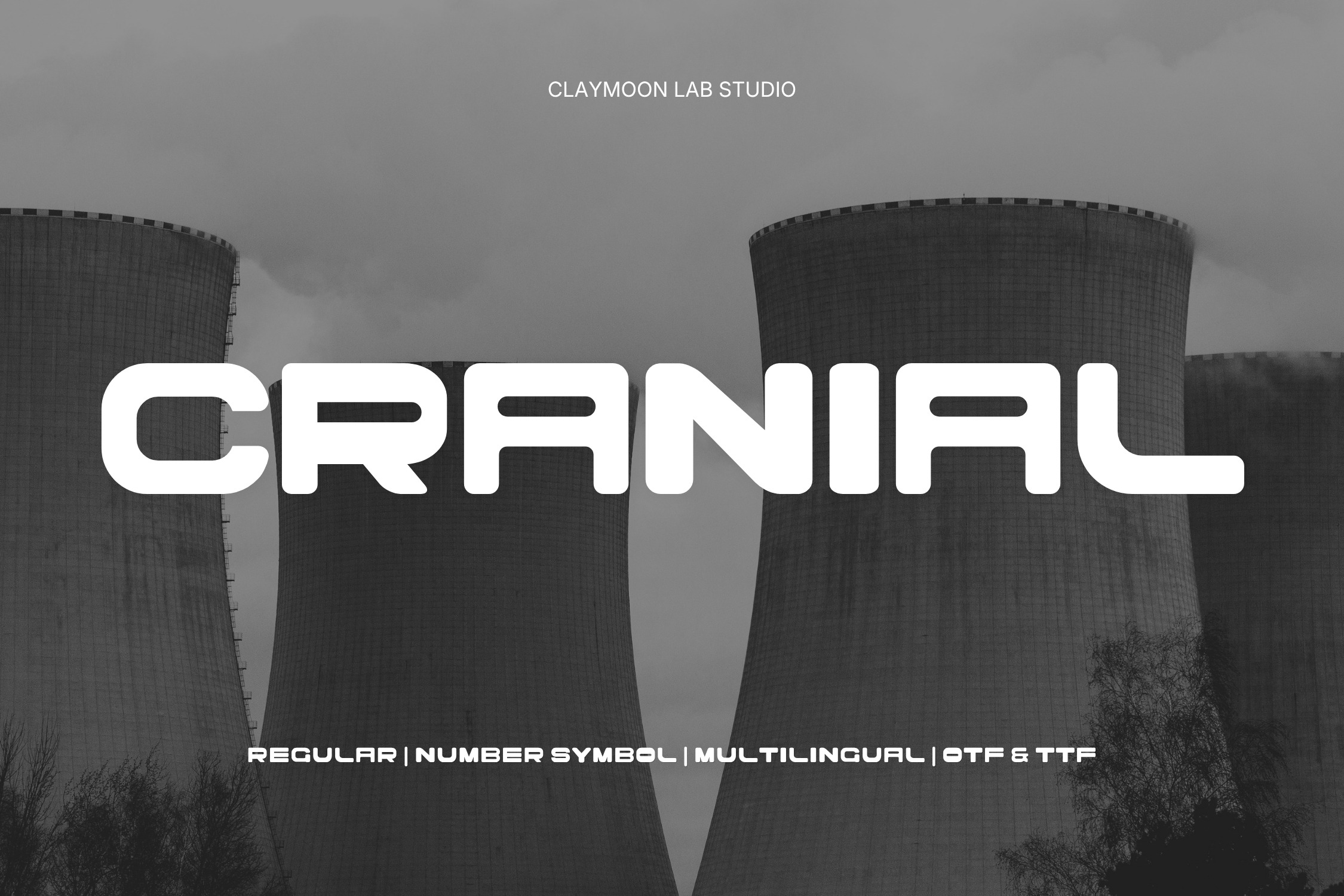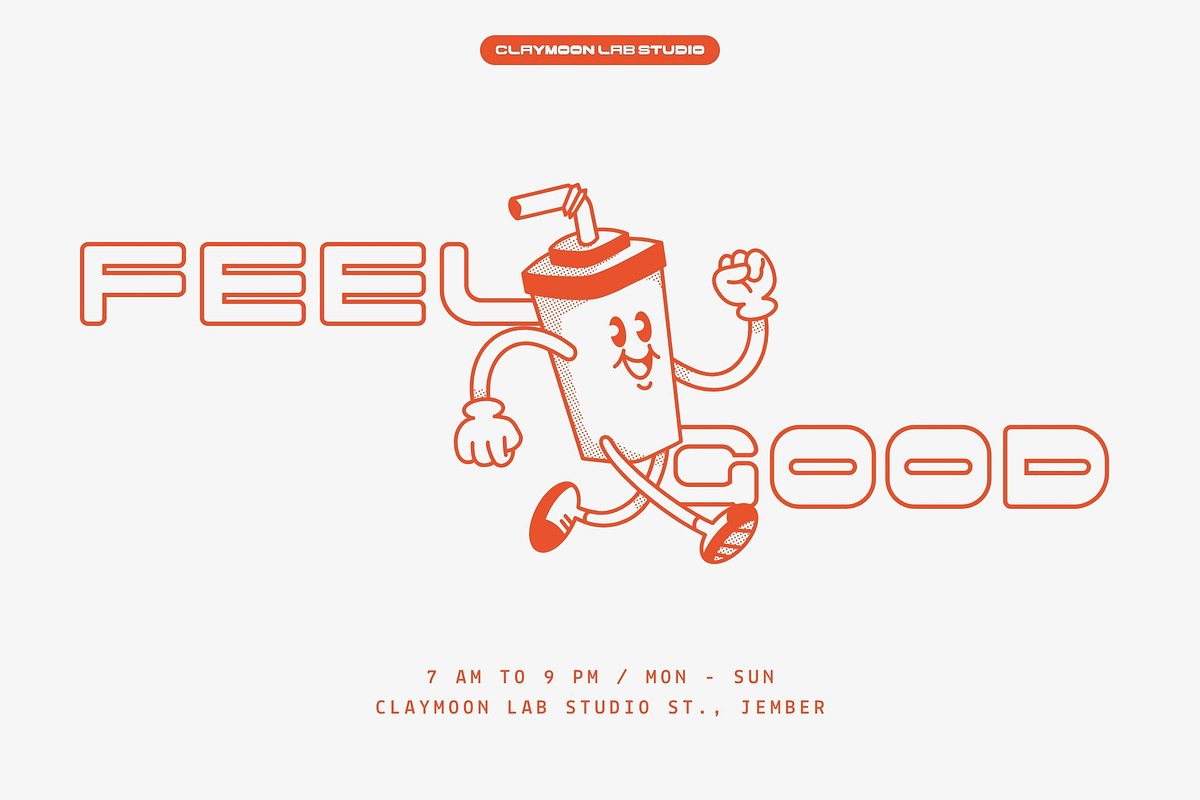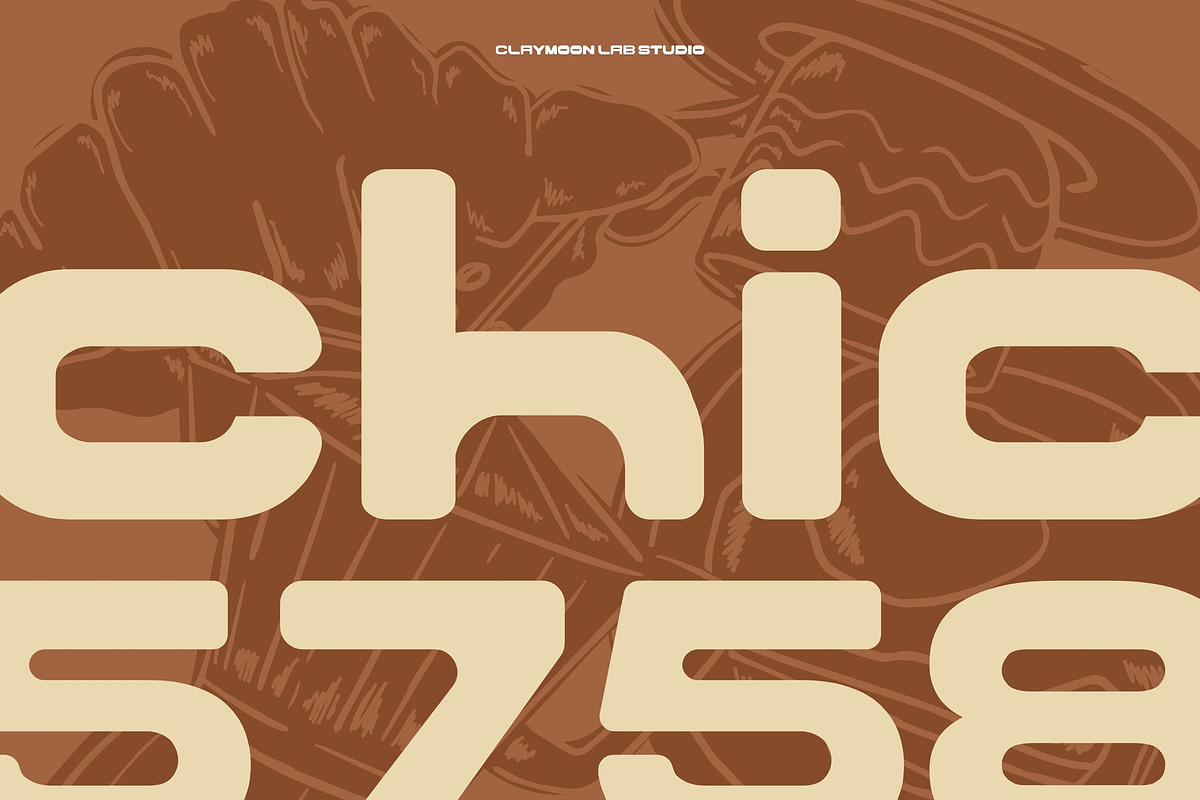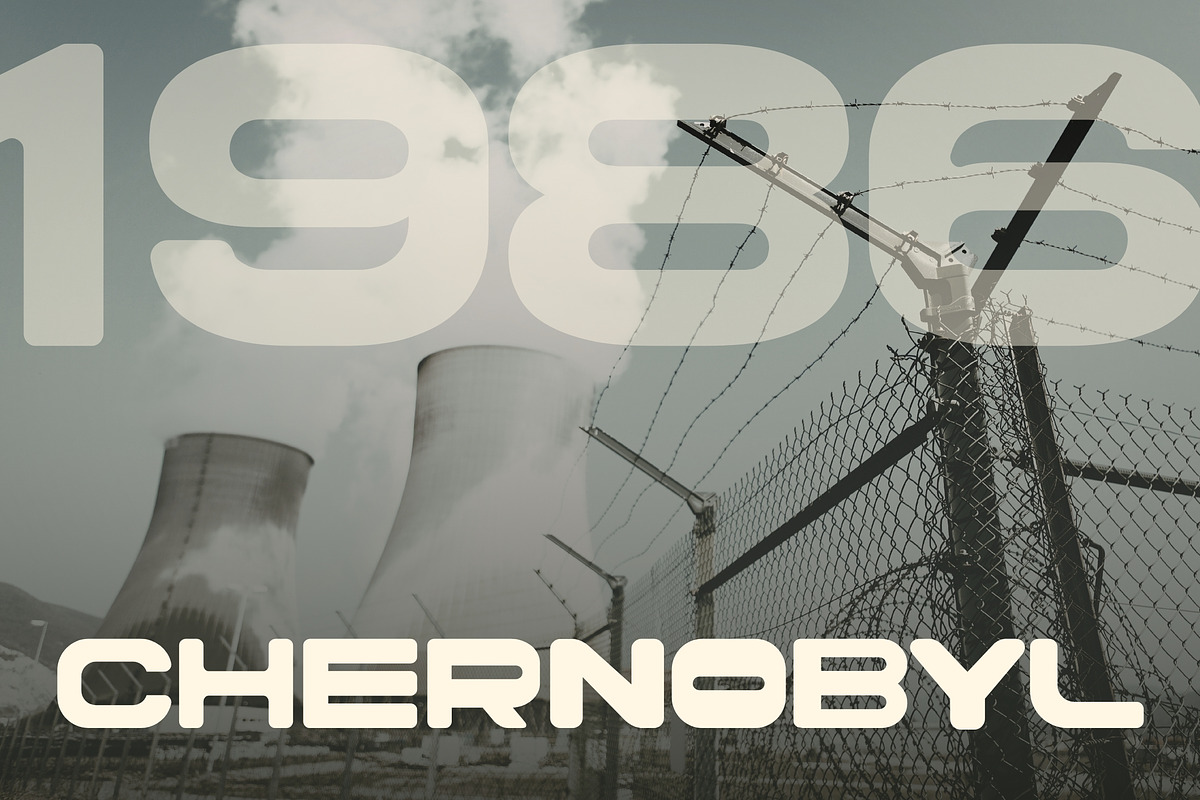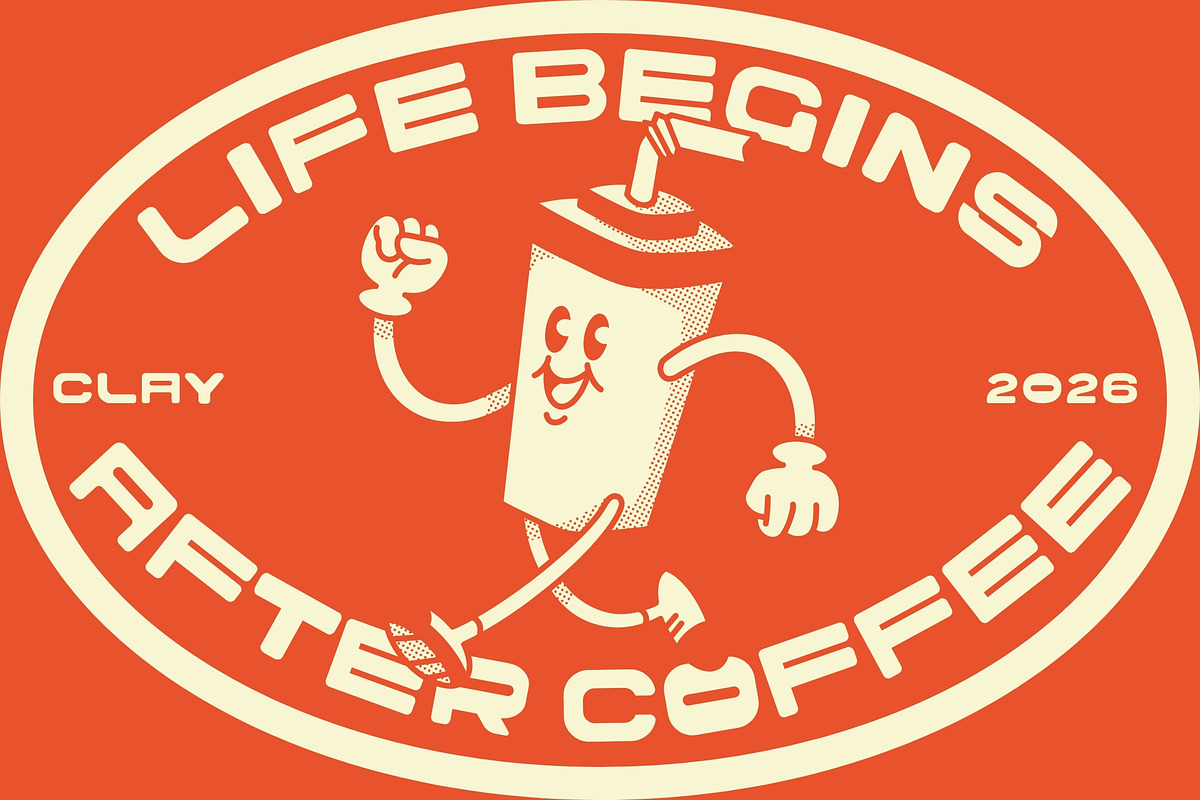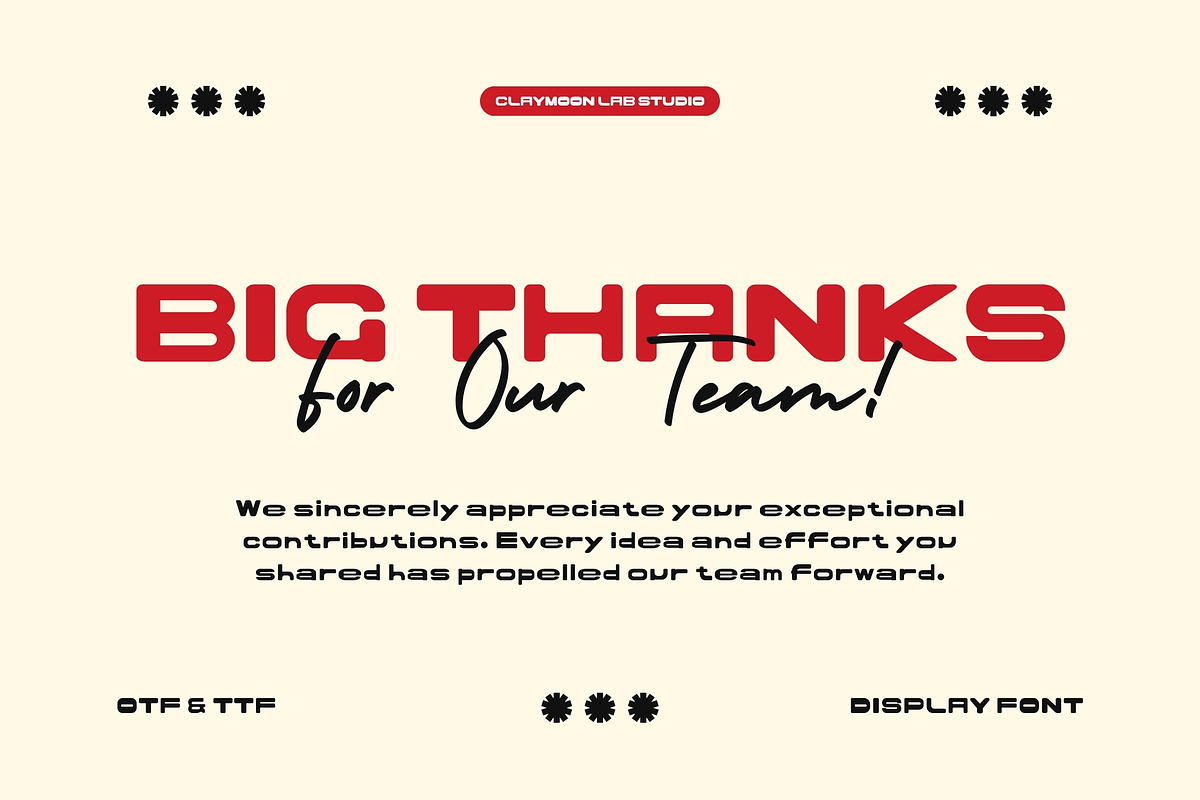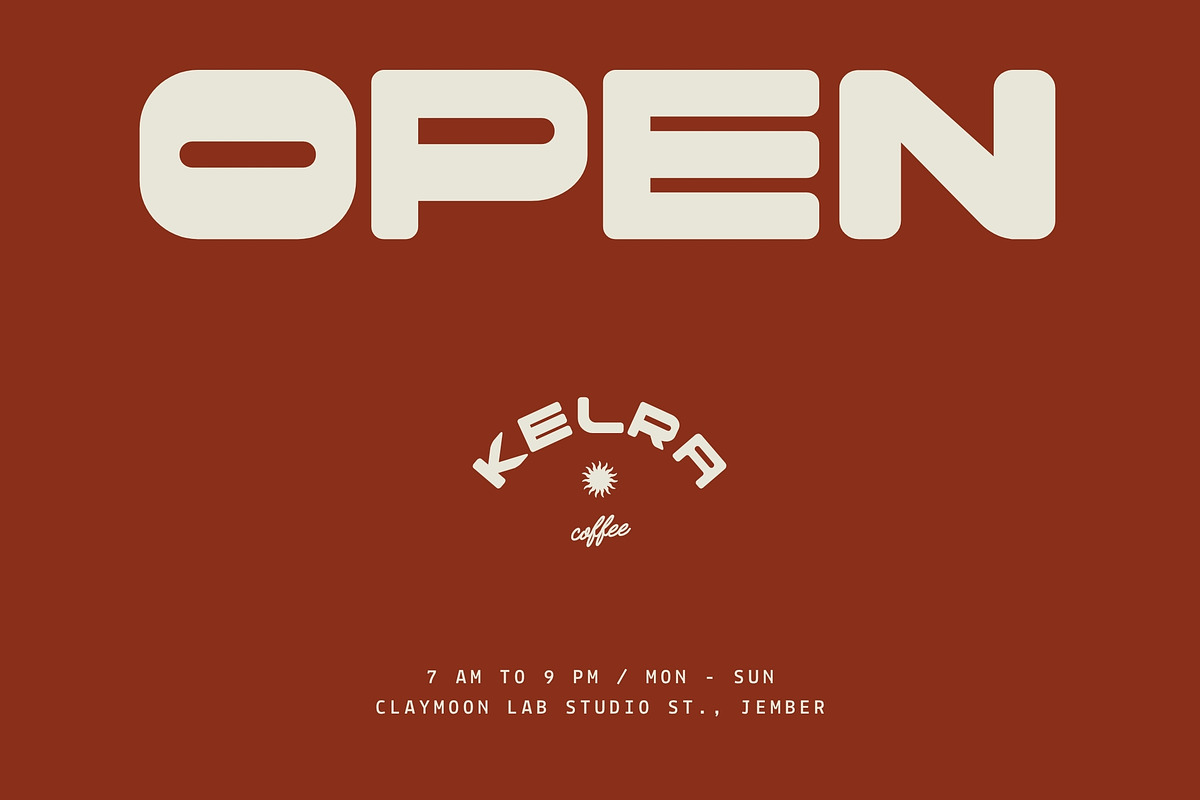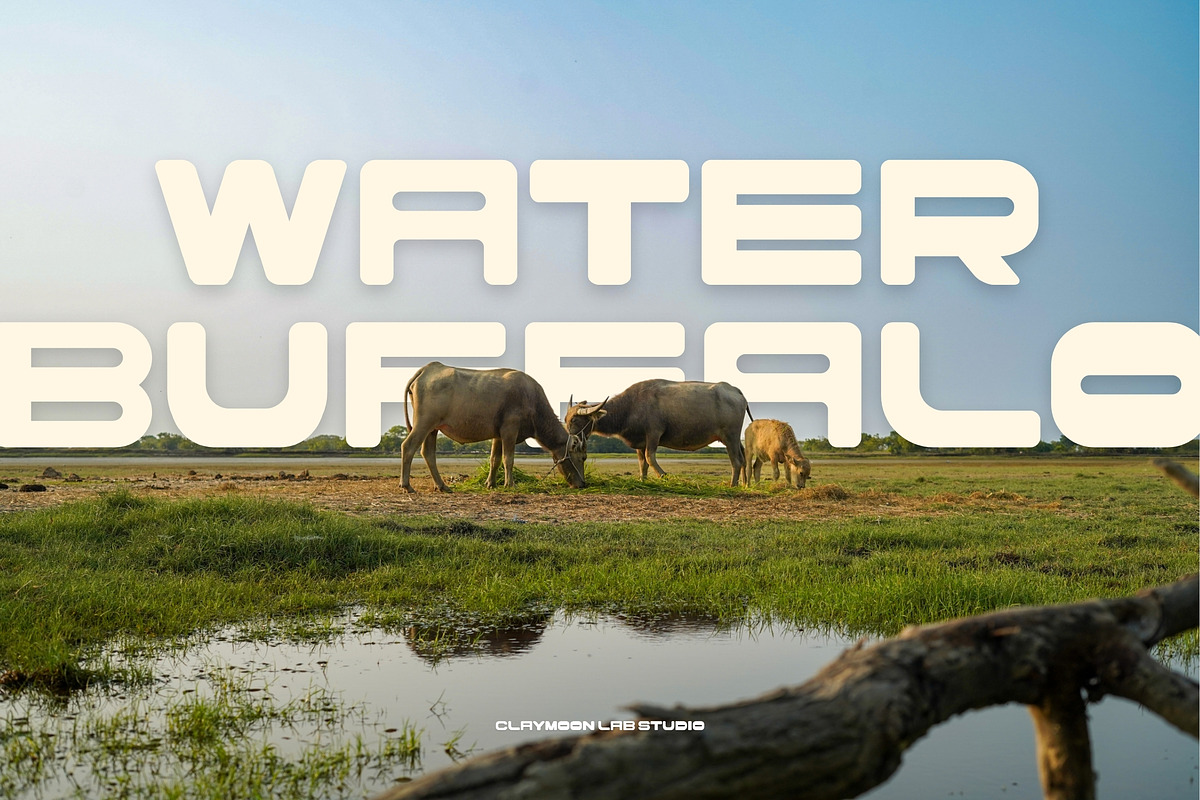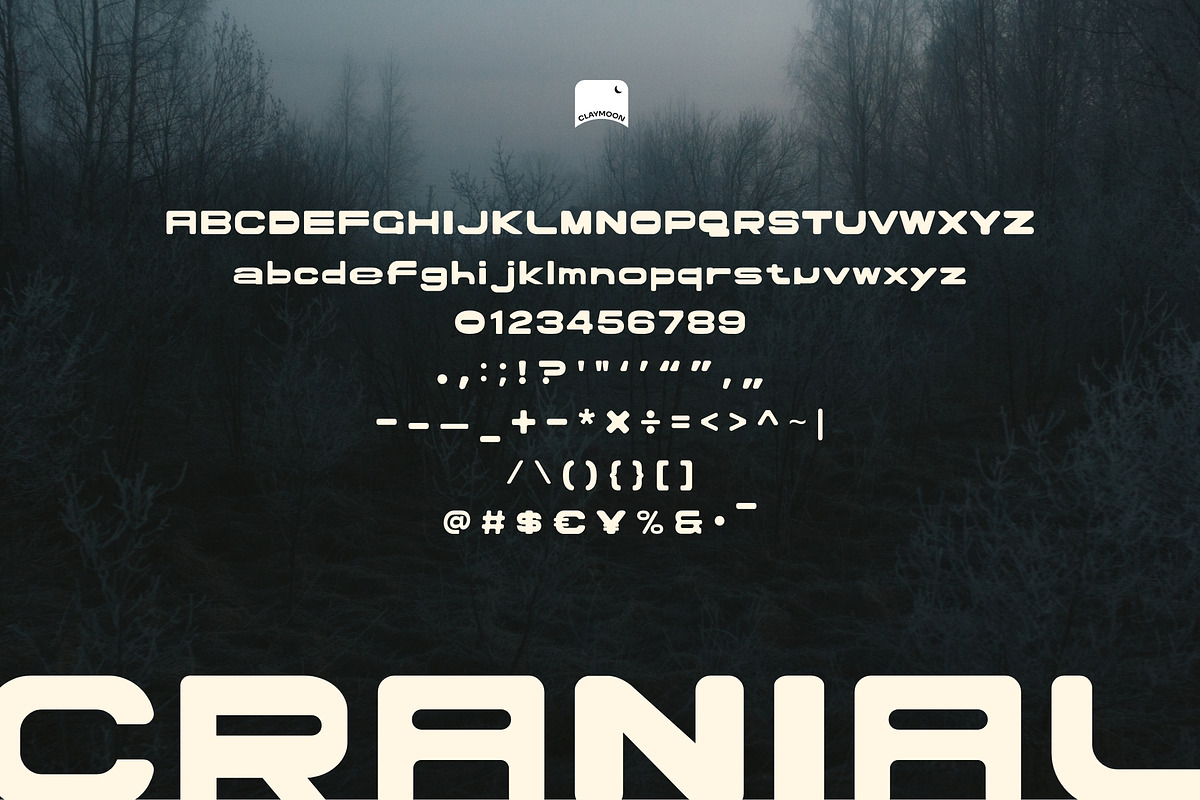
Cranial Bold Futuristic Display Font
Cranial — Bold Futuristic Display Font
Engineered for impact, Cranial is a bold futuristic display typeface that fuses ultra-rounded letterforms with sharp inline cutout details, creating a distinctive visual tension that feels simultaneously industrial, technological, and unmistakably modern. The wide, heavy construction commands attention at any scale, while the signature horizontal slot terminals give each character a mechanical precision that sets Cranial apart from generic rounded sans-serifs.
From dystopian editorial spreads to cutting-edge tech branding, Cranial delivers the kind of typographic authority that makes headlines impossible to ignore. Its versatile character — equally at home in dark, gritty atmospheres and clean, minimal layouts — makes it a powerful tool for designers working across a broad spectrum of contemporary creative projects.
Full Character Set: Uppercase, lowercase, numerals, and extensive punctuation and symbols.
Multilingual Support: Extended Latin character coverage for international creative projects.
Perfect For These Projects:
Branding & Logo Design: Building bold wordmarks, logotypes, and brand identities for tech, industrial, and forward-thinking companies.
Poster & Event Promotion: Setting powerful headlines for concerts, exhibitions, sports events, and urban cultural campaigns.
Digital & Social Media Content: Crafting high-impact thumbnails, social media graphics, digital ads, and motion title cards.
Editorial & Publication Design: Composing striking magazine covers, book titles, and editorial spreads with a futuristic edge.
UI & Screen Design: Applying bold display typography to app interfaces, game title screens, and digital product branding.